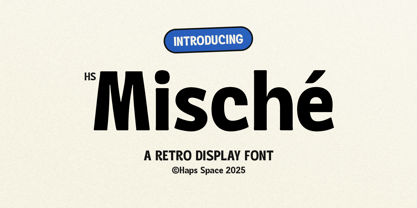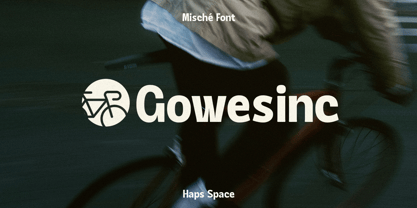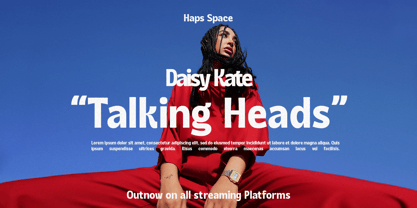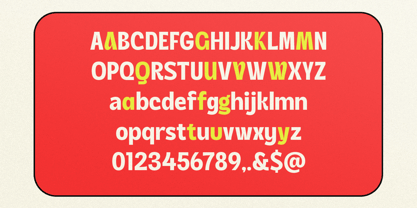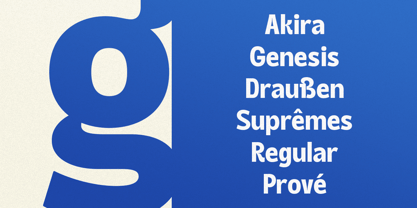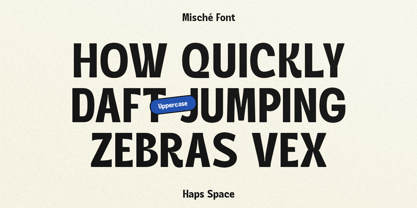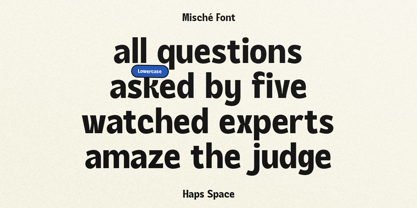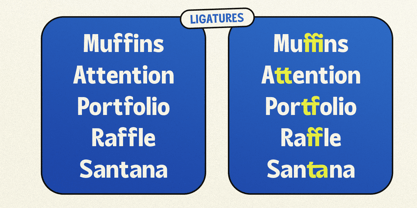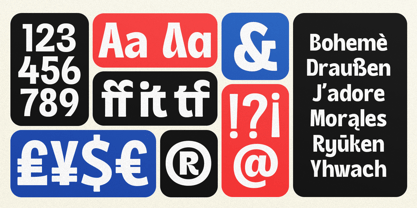
HS Mische Display
by Haps Space
The HS Mische Display Font Family was designed by Haris Purnama Putra, Egi Ahmad Mufid and published by Haps Space. HS Mische Display contains 1 styles.
HS Mische - Retro Display Font is a Playful Sans-Serif comes with alternatives and ligatures, helps to create stunning Posters, Branding, Tshirt, Social Media Graphics and much more.
Designers: Haris Purnama Putra, Egi Ahmad Mufid
Publisher: Haps Space
Foundry: Haps Space
Design Owner: Haps Space